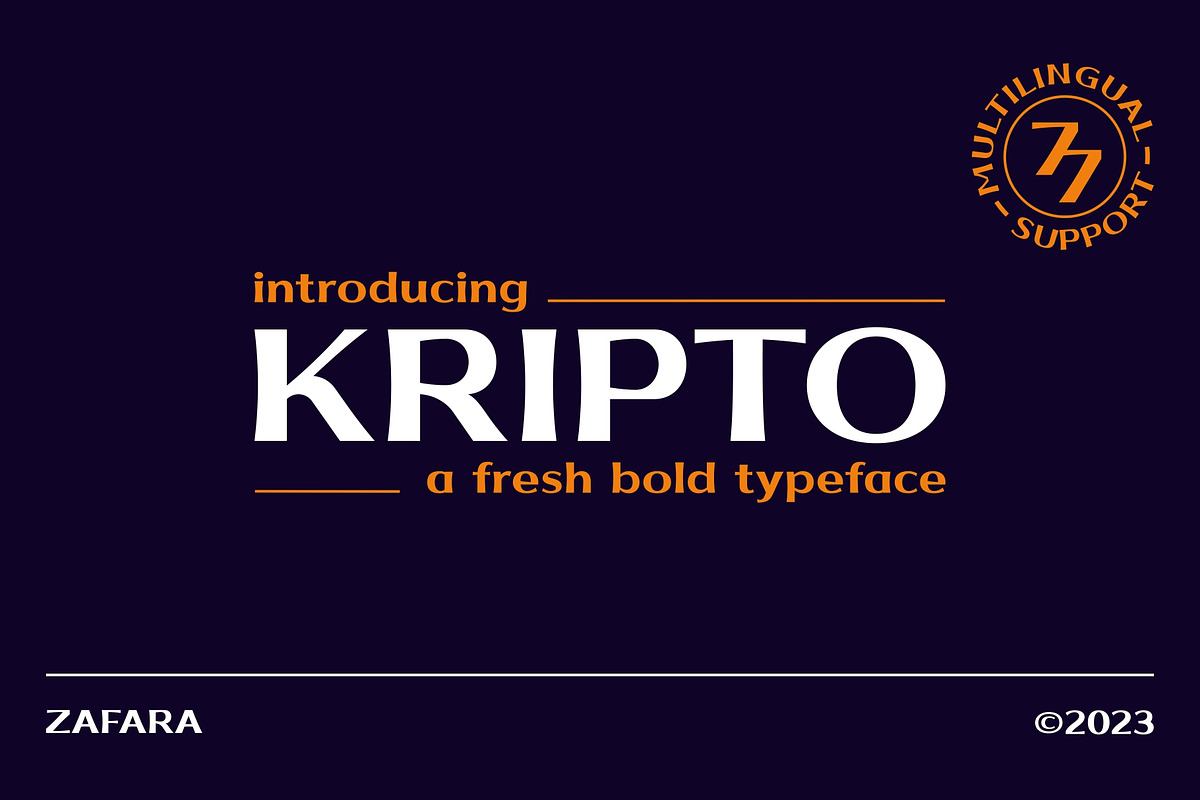
The Kripto - A Fresh Bold Typeface Free Download is a strong, modern font that brings a bold, fresh look to any design. Perfect for headlines, posters, logos, and any project that needs a powerful, eye-catching font. Please note, for commercial use, a license must be purchased. You can download it for free for testing purposes.
With its solid structure and contemporary feel, the Kripto - A Fresh Bold Typeface Free Download is ideal for creating impactful designs that grab attention. Its clean lines and strong presence make it perfect for both print and digital applications, ensuring your projects stand out.